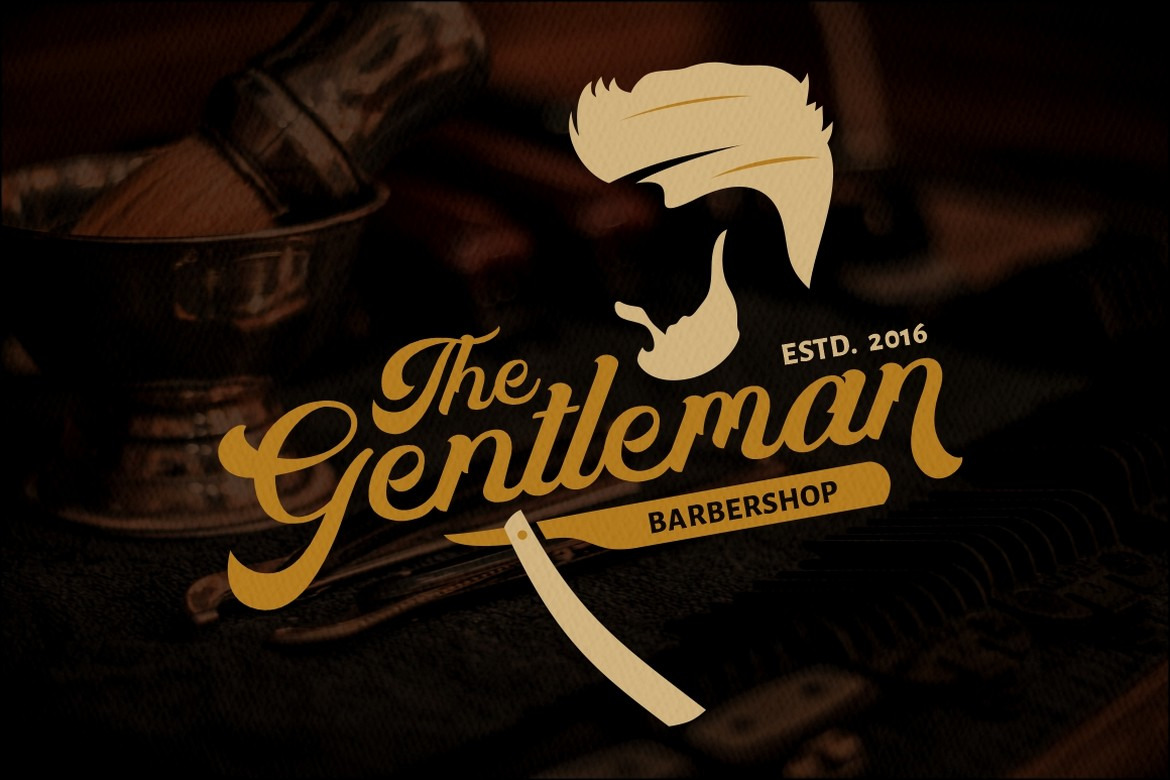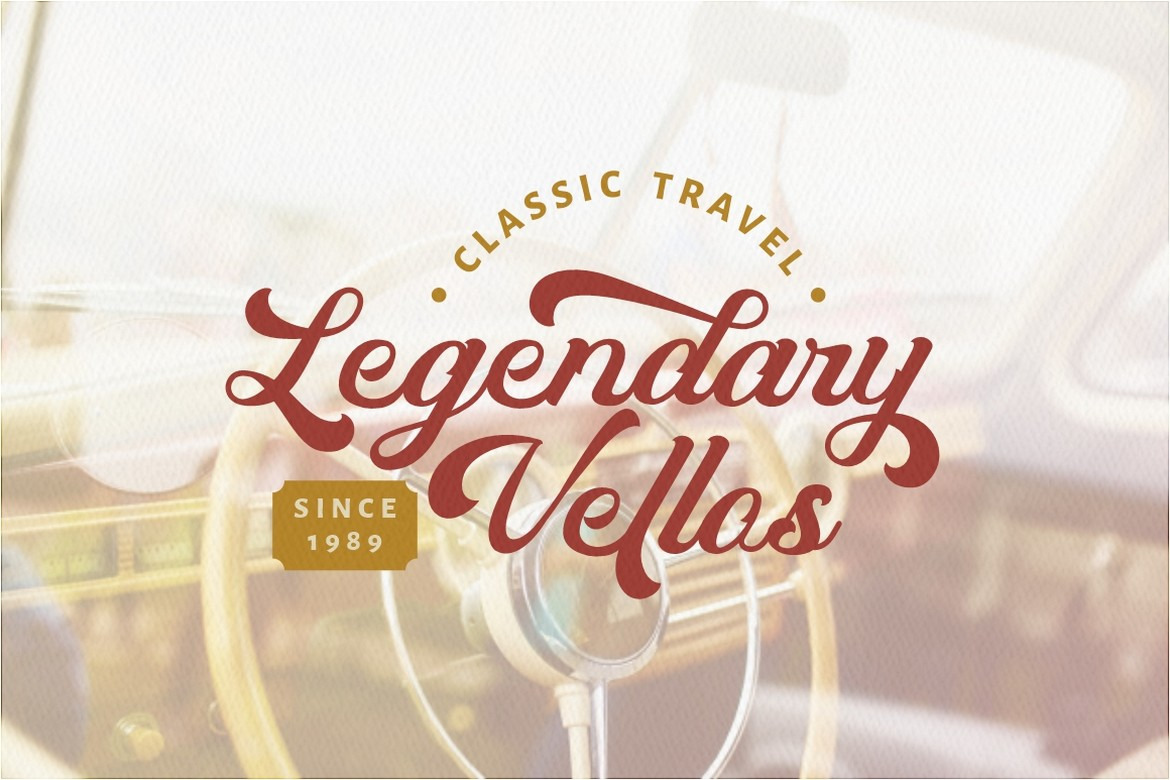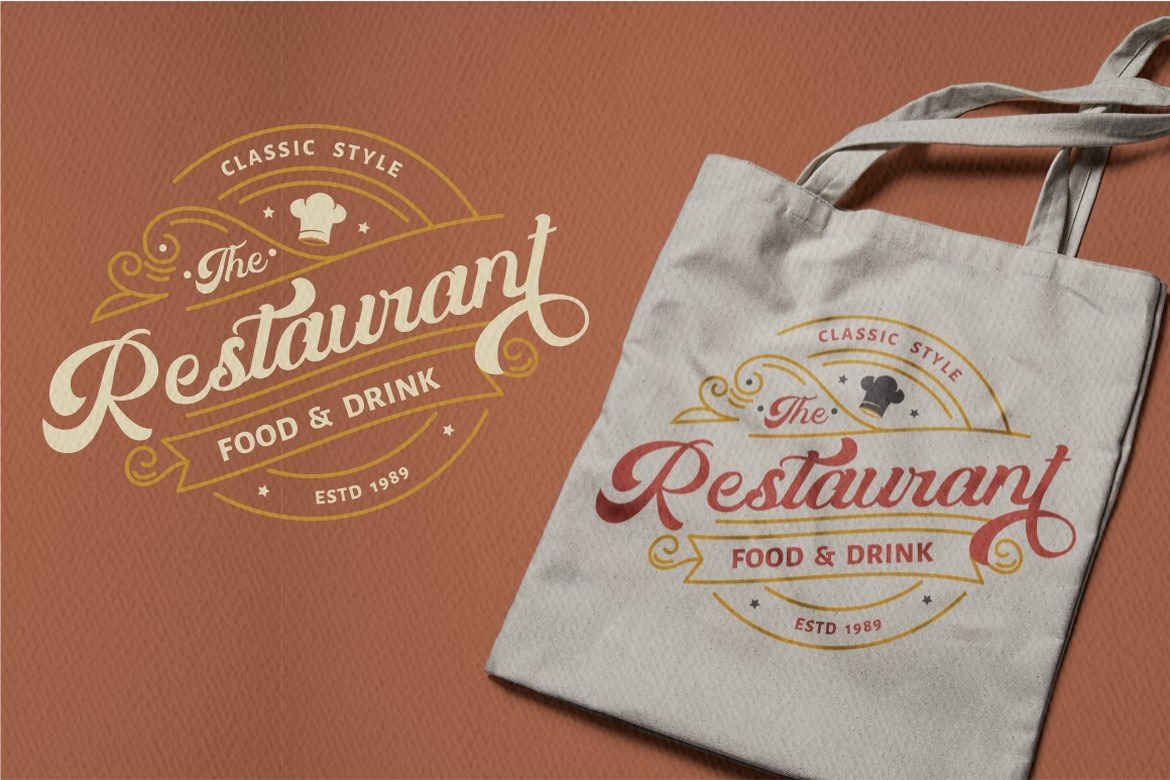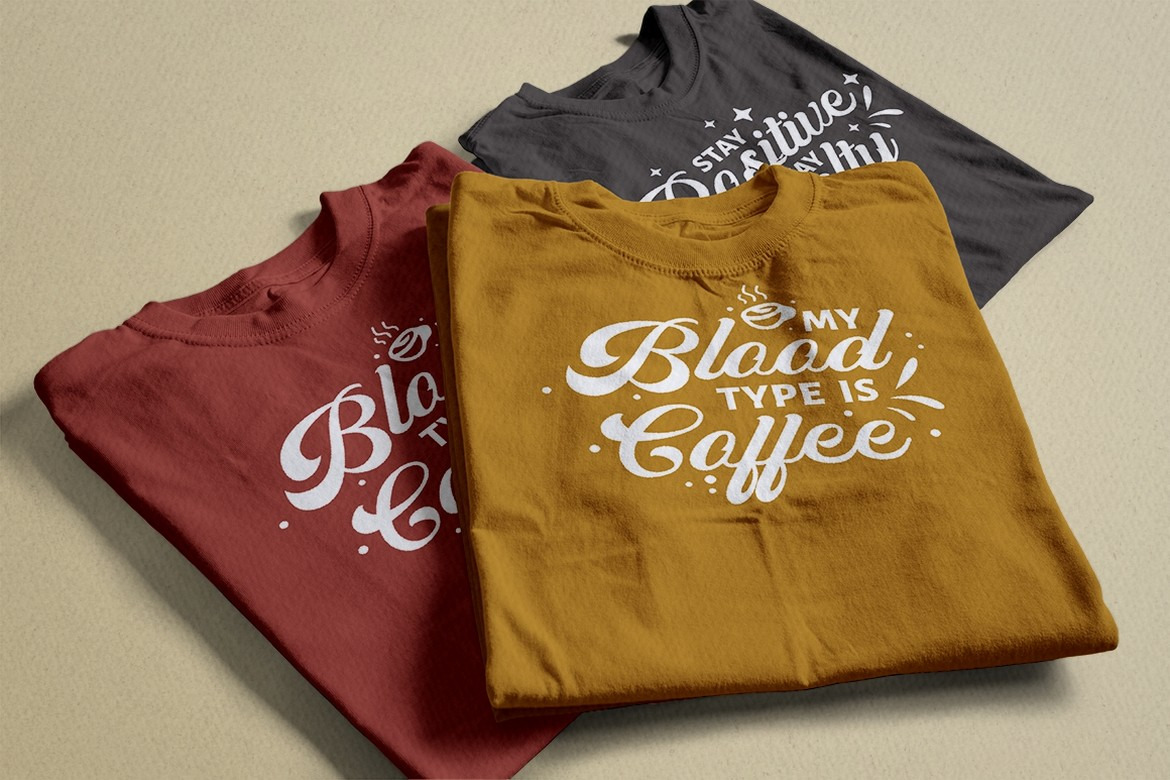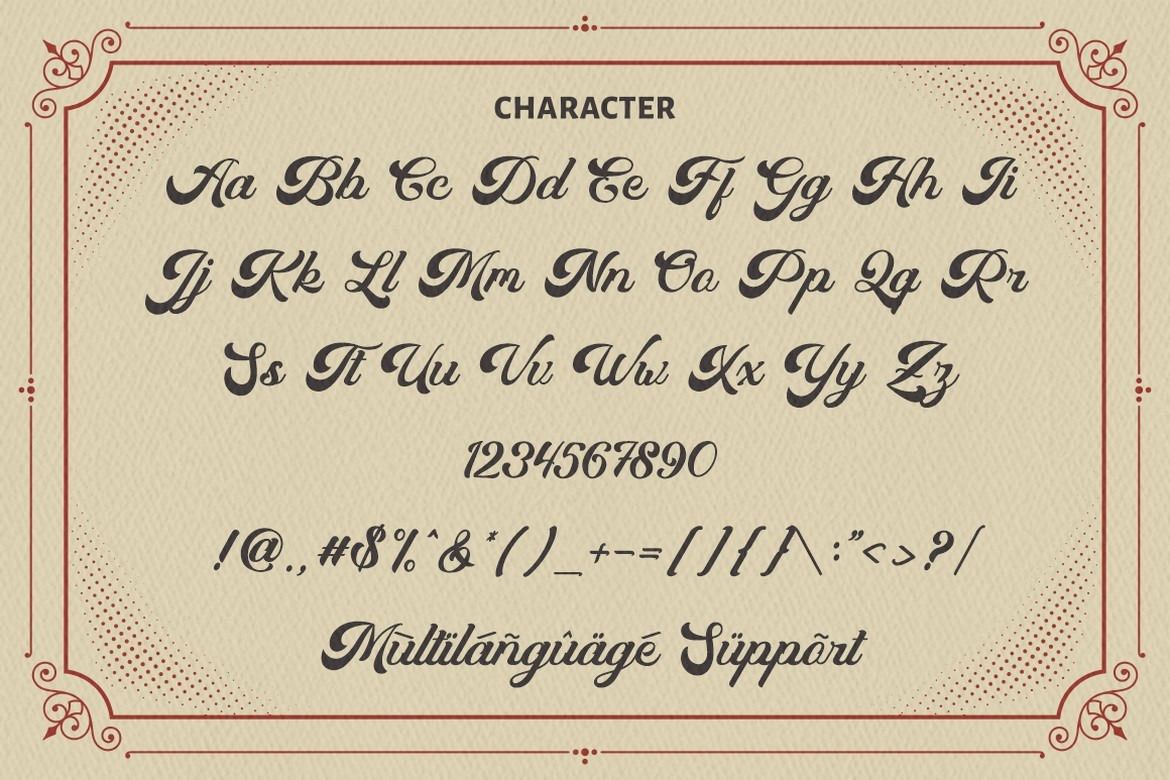
Mahacara - Vintage Script Font
Mahacara
Mahacara is a vintage script font. The classic feel is really perfect for you who needs a typeface for retro / vintage theme. This font is comes in uppercase, lowercase, punctuations, symbols & numerals, alternate, etc. Also support multilingual and already PUA encoded.
Mahacara is perfect for logotype, apparel, invitation, magazines, branding, packaging, advertising, fashion, make up, stationery, novels, labels or anything.
Features :
- Number, Punctuation And Symbols
- Alternate
- Multilanguage Support.